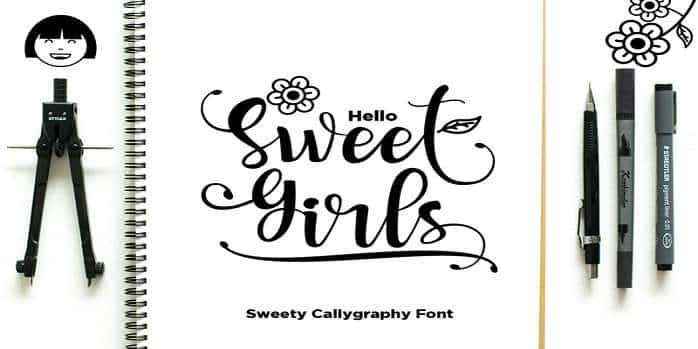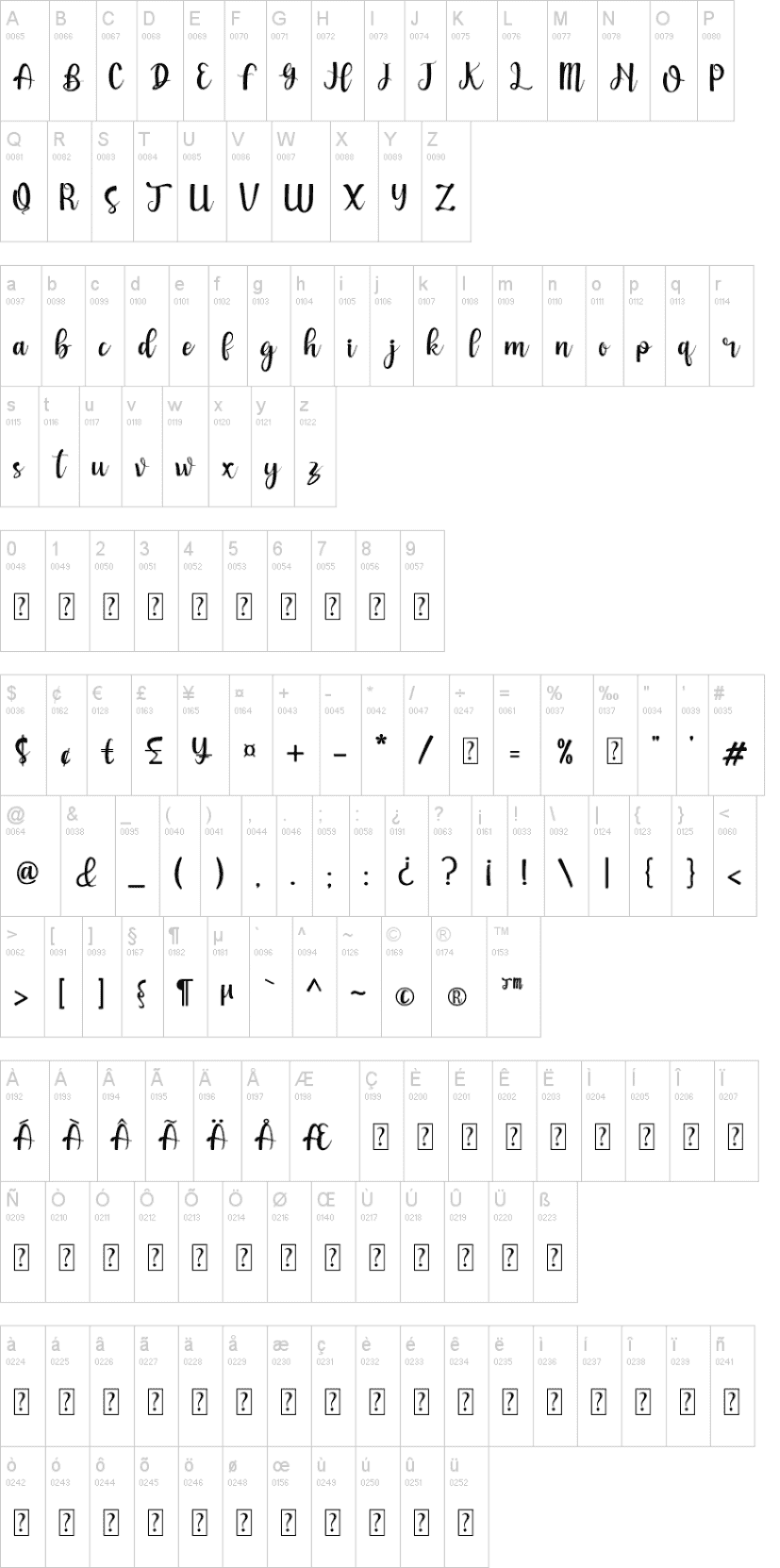
Sweet Girls is a high quality font which is classified as Calligraphy font and is created by the talented Haksen Letters. The free version only contains all types of letters both capital and small letters and a few more of the special symbols.